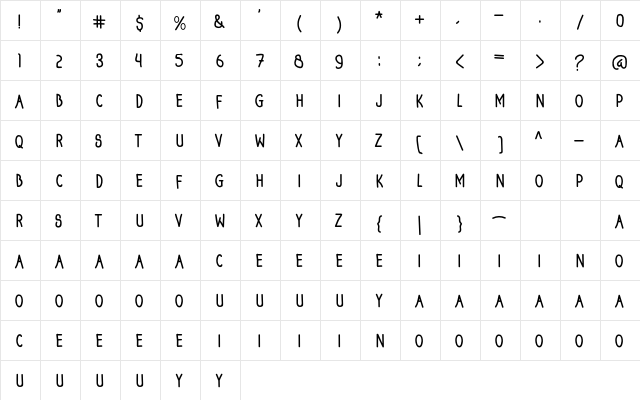
Christmas Holiday Regular
| Designer | Nur Edi Prayitno |
Design Context for Christmas Holiday Typeface
Christmas Holiday offers clean, dependable letterforms without strong stylistic allegiance, making it a practical choice for designers who need flexibility.